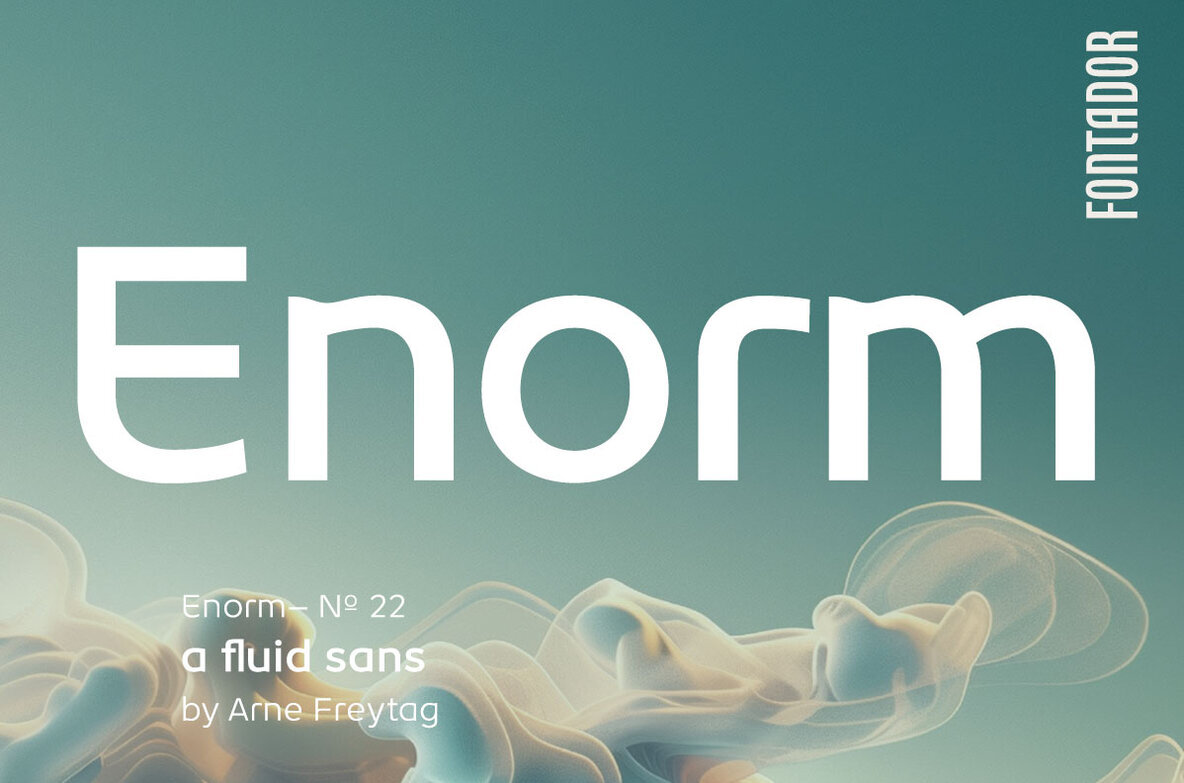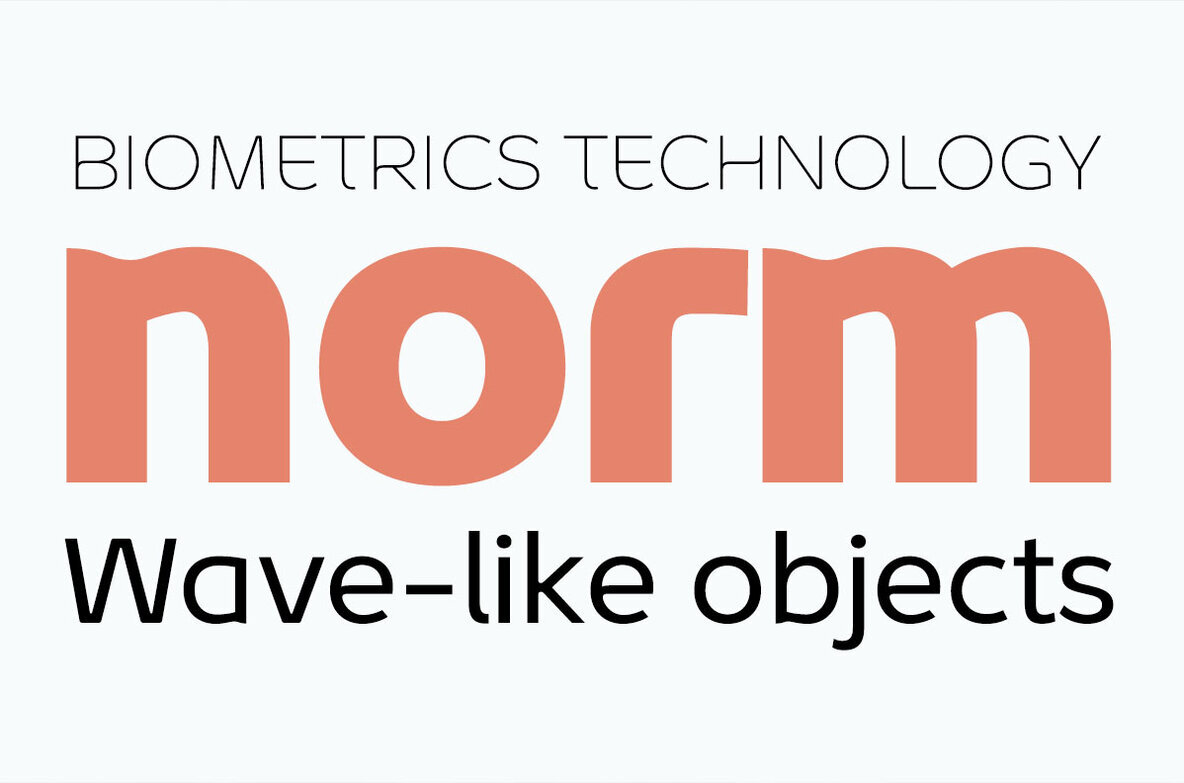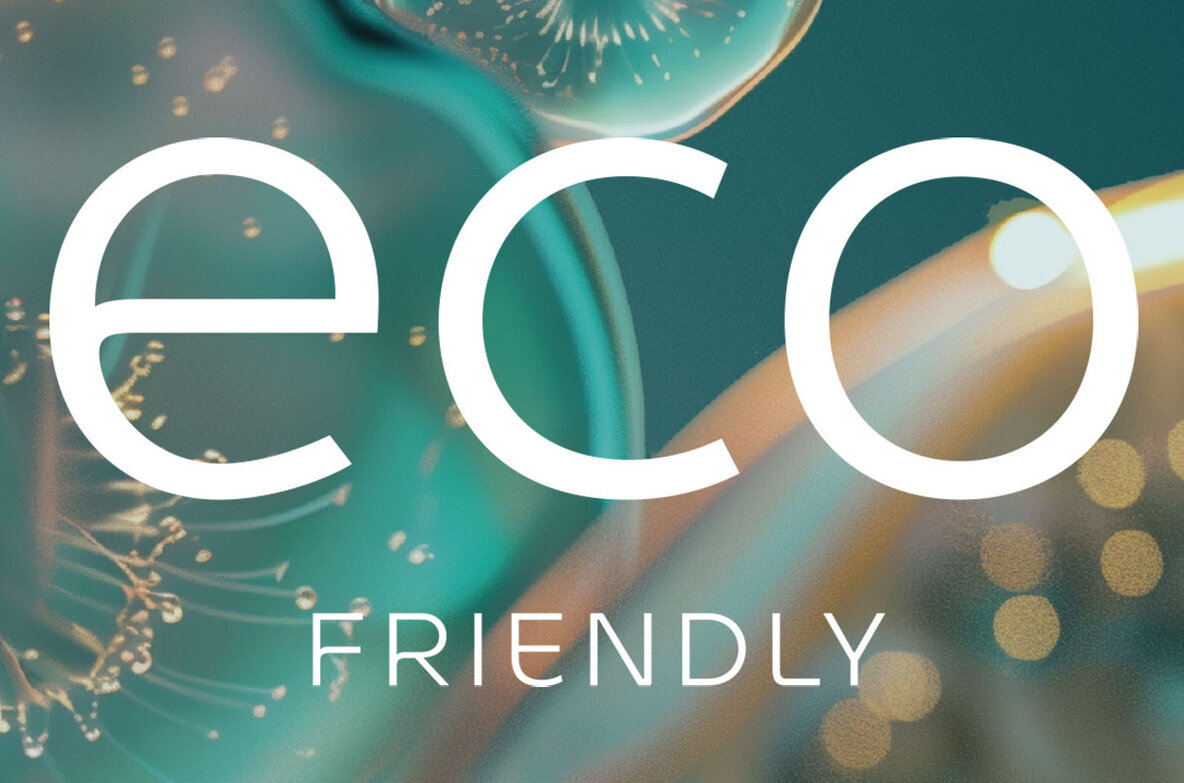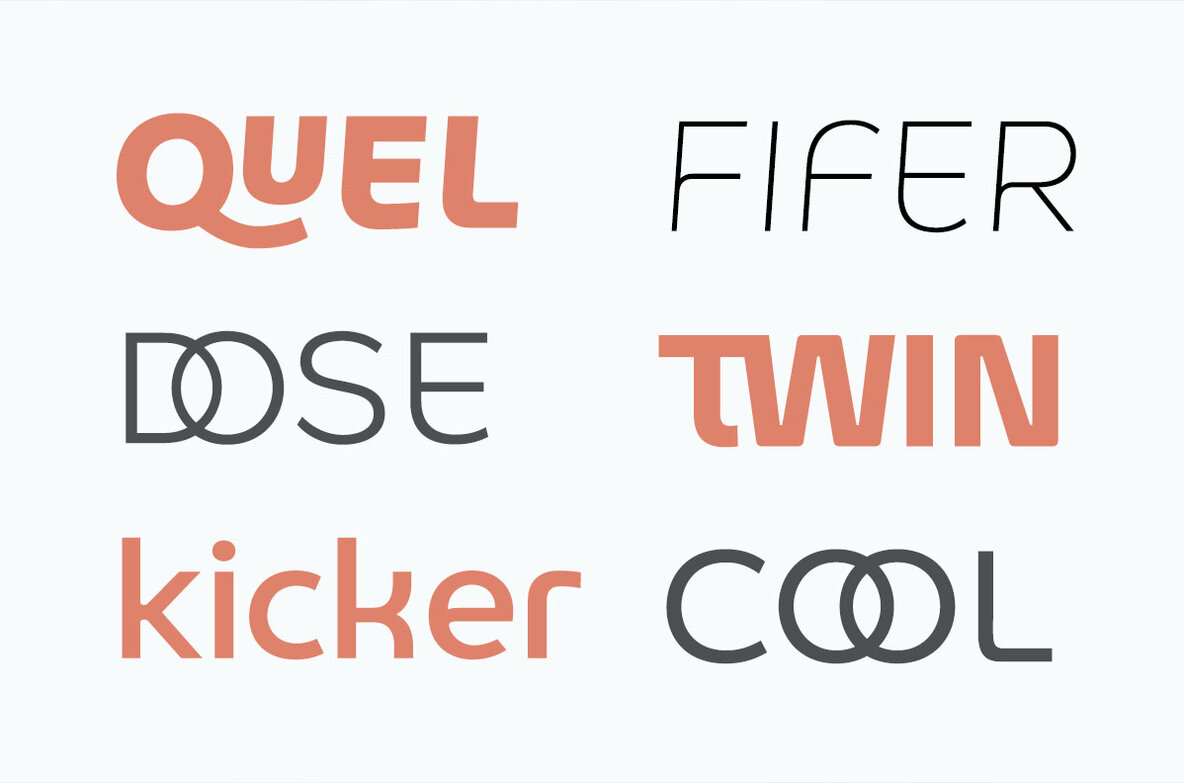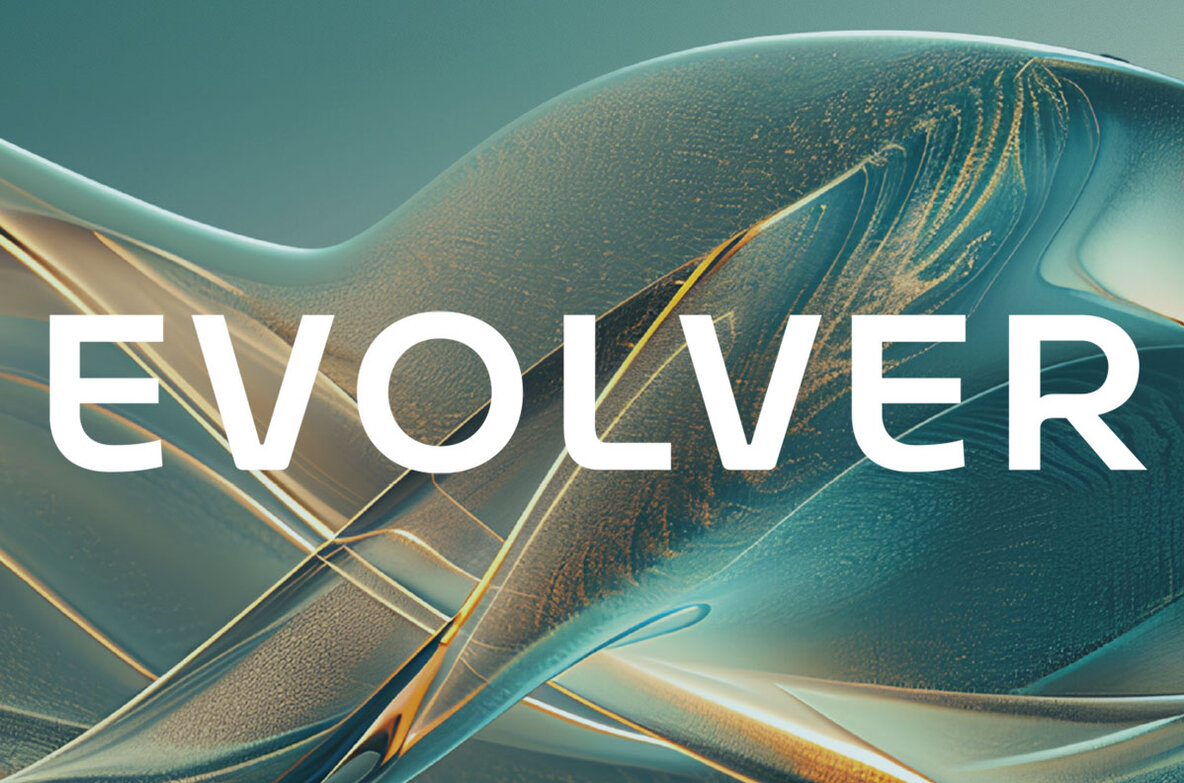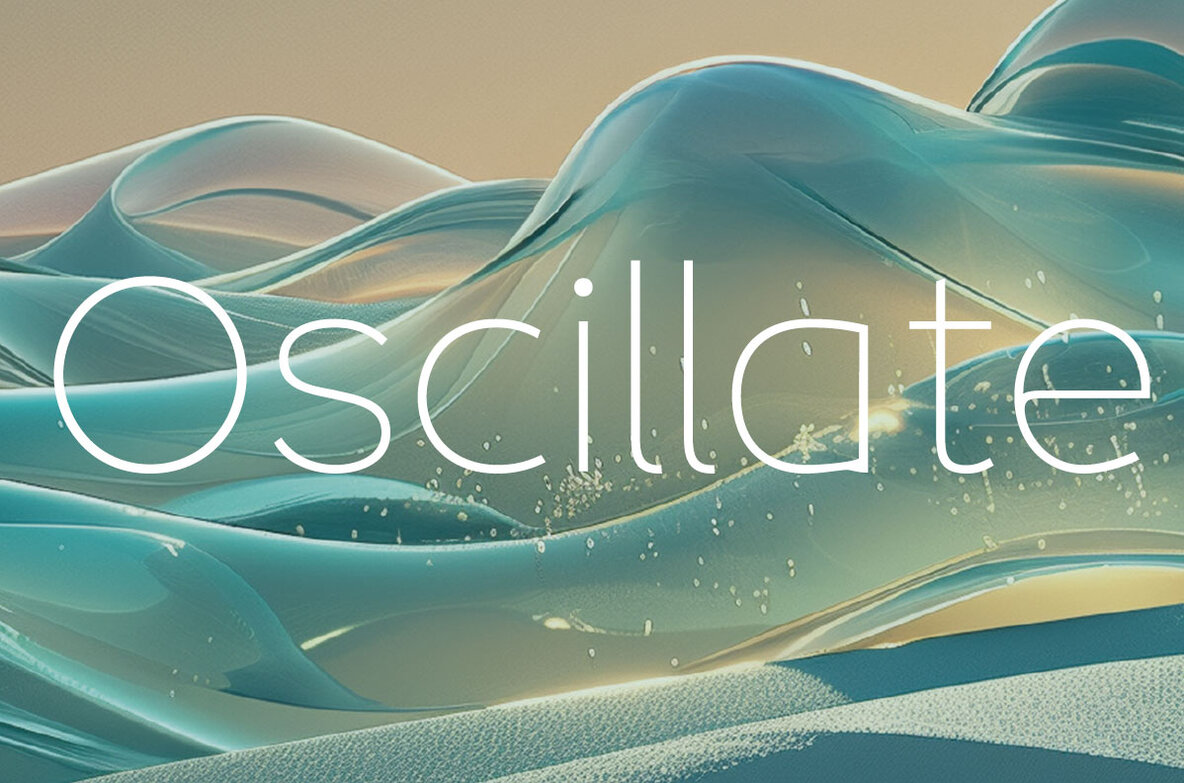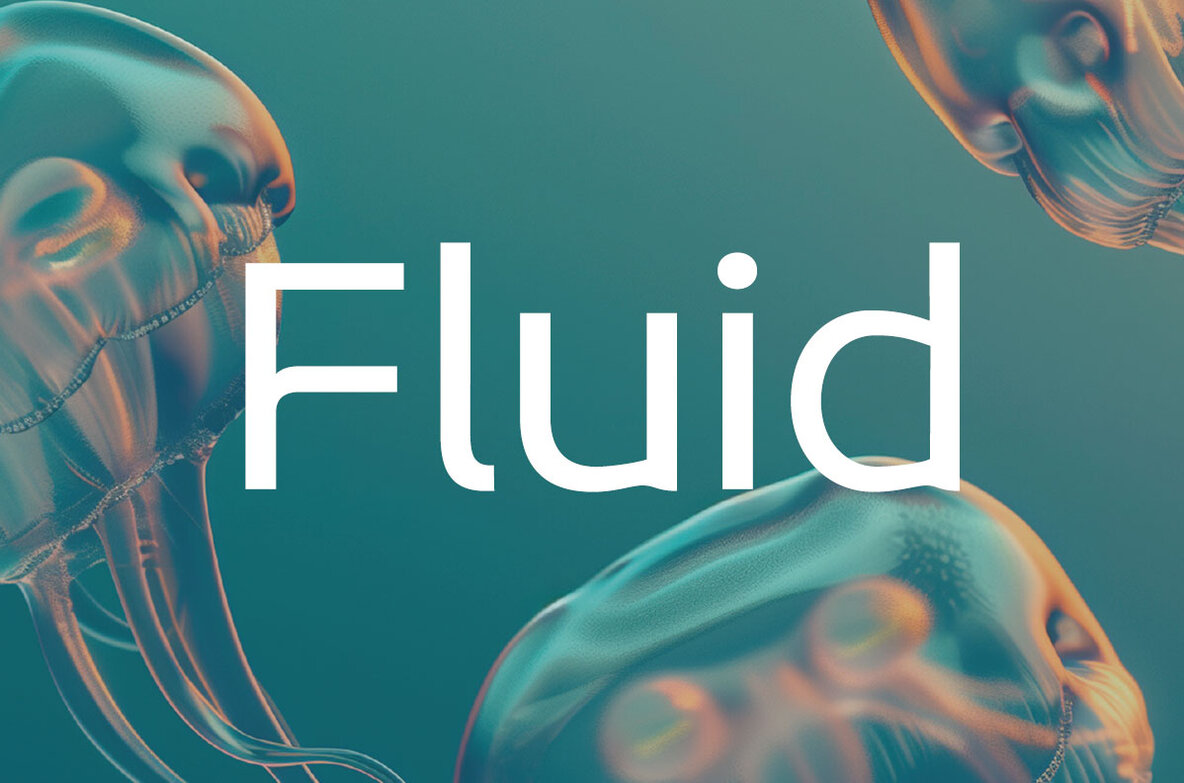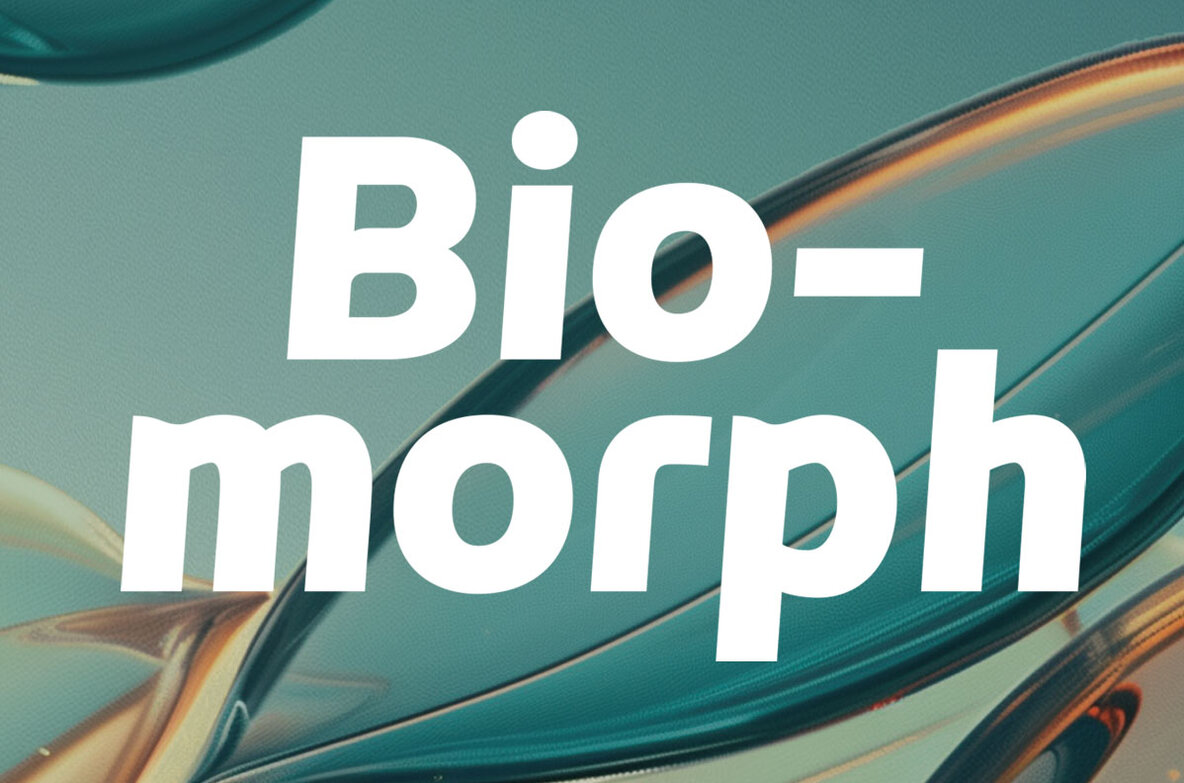
Enorm Font
Enorm is a fluid, futuristically conceived neo-grotesque typeface that masterfully blends clarity with a timeless aesthetic. Designed to be the typographic foundation for distinctive brand communication, it harmonizes traditional elements with modern and emerging technologies. Its pronounced x-height increases readability, even at smaller sizes, presenting an open and generous appearance on print and digital screens alike. Enorm is enriched with extensive OpenType features, such as ligatures, contextual alternates, and stylistic sets, ensuring versatility across various styles. With a comprehensive support for the Latin script, it caters to diverse typographic applications. Enorm, a variant related to Object, stands as a modern geometric typeface, adeptly suited to fulfill the demands of contemporary design projects.Enorm: A Neo-Grotesque Typeface for Modern Branding